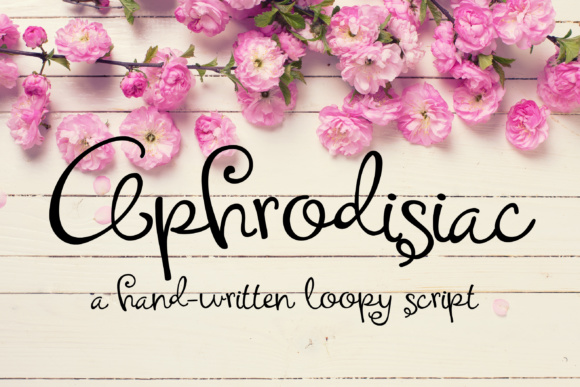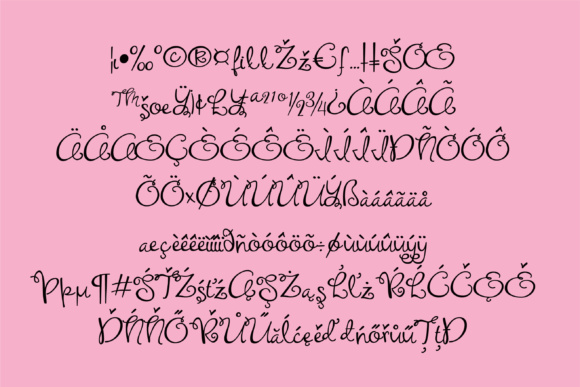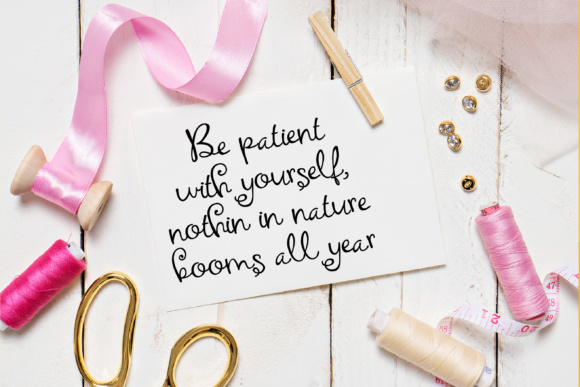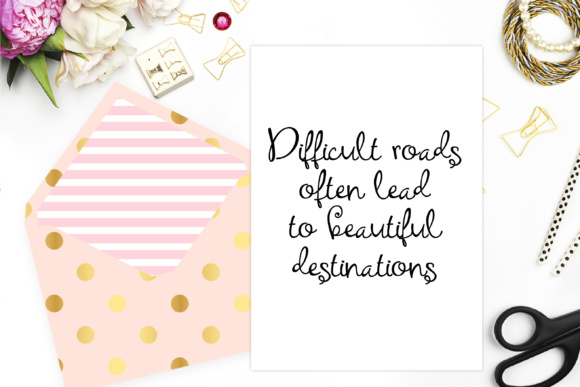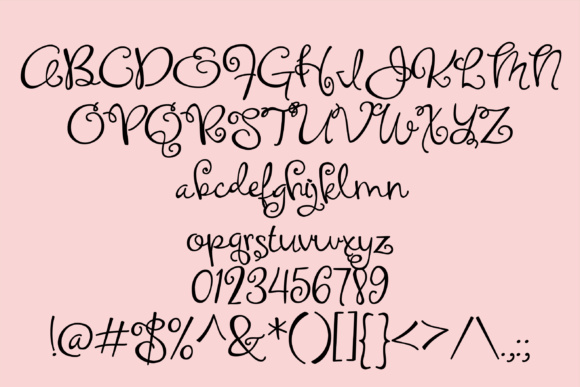
HomeScript FontsAphrodisiac Font Script Fonts Aphrodisiac Font FacebookXPinterestWhatsApp Aphrodisiac Font Poster 2 Aphrodisiac Font Poster 3 Aphrodisiac Font Poster 4 Aphrodisiac Font Poster 5 About Aphrodisiac Font Aphrodisiac is a hand-written script with loopy and curly ascenders and desenders. DOWNLOAD ON CREATIVE FABRICAThis font is sold and delivered by Creative Fabrica. Font Canyon may earn a commission if you buy through this link. People also explored Writing Font Sweet Heart Font Nice Shine Font Sunflower Christmas Font Cardigan Font YWFT Maetl Full Neue – 30% SAVE Font Jasmine Tea Font Graveyard Font 385 0 TagsAphrodisiac Font Previous articleEat Your Vegetables FontNext articleFinnegan Fine Font LEAVE A REPLY Cancel reply Comment: Please enter your comment! Name:* Please enter your name here Email:* You have entered an incorrect email address! Please enter your email address here Website: Save my name, email, and website in this browser for the next time I comment. Personal Use Free First Be Lucky Personal Use Free Read more about this font Open Heart Personal Use Free Read more about this font Sheiloria Personal Use Free Read more about this font Love Memories Personal Use Free Read more about this font BLOG Using Fonts in Digital Marketing: Tips to Strengthen Your Brand Identity In the realm of digital marketing, every visual element plays a crucial role in shaping a brand's identity, and fonts are no exception. The... Modern Sans-Serif Fonts That Brands Love in 2025 How to Install and Use Fonts on Windows, macOS, and Web Projects Fonts That Capture the Spirit of New York City